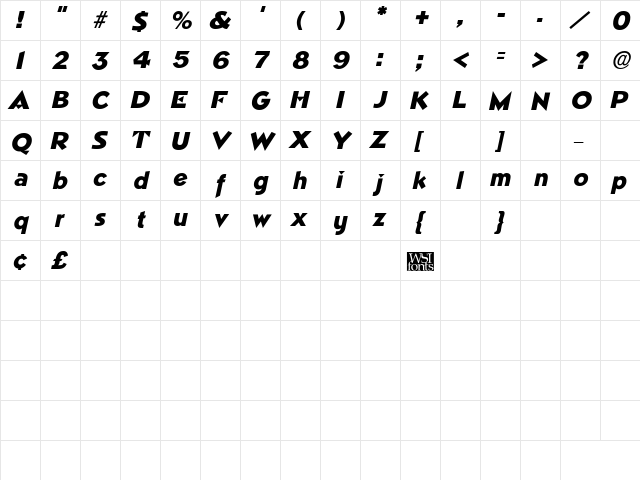
Trimble Italic
Design Context for Trimble Typeface
Trimble is a composed and adaptable typeface that performs quietly and consistently across a wide range of design contexts. The dynamic lean of this cut emphasises speed and emphasis in any layout.
Pro Tip: Try Trimble for annotation and caption copy alongside an upright companion — the contrast in angle creates a dynamic but ordered typographic system.